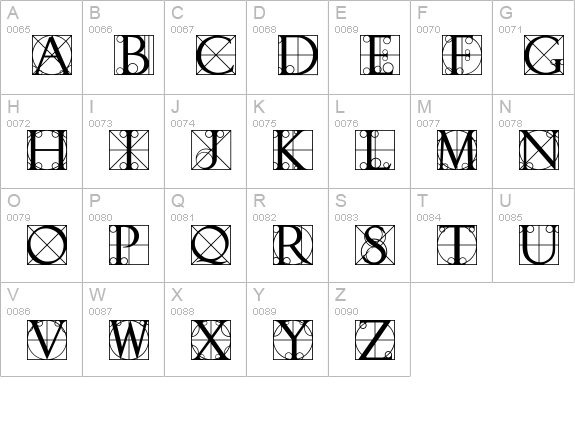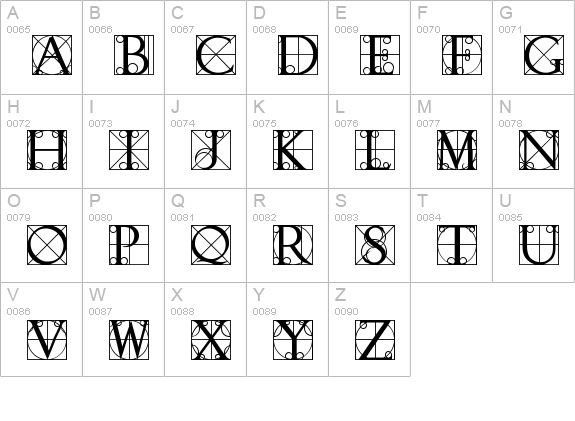
Walrod Font Details
Introducing Walrod Font, a captivating and versatile typeface that effortlessly blends timeless elegance with modern sophistication. With its refined curves and graceful strokes, this font exudes a sense of charm and refinement, making it perfect for a wide range of design projects. Designed with meticulous attention to detail, Walrod Font offers a harmonious balance between classic and contemporary aesthetics. Its clean and well-defined letterforms create a sense of clarity and legibility, ensuring that your message is conveyed with utmost precision and impact. This font's versatility knows no bounds, as it effortlessly adapts to various design styles and applications. Whether you're creating elegant wedding invitations, sophisticated branding materials, or eye-catching editorial layouts, Walrod Font is the perfect choice to elevate your designs to new heights. What sets Walrod Font apart is not just its stunning aesthetics, but also its accessibility. We are thrilled to announce that Walrod Font is available for free download exclusively at FontsMarket.com. This means that you can easily incorporate this exquisite typeface into your projects without any financial constraints. So, why wait? Embrace the beauty and versatility of Walrod Font and let your creativity soar. Download this captivating typeface today, and unlock a world of endless design possibilities.